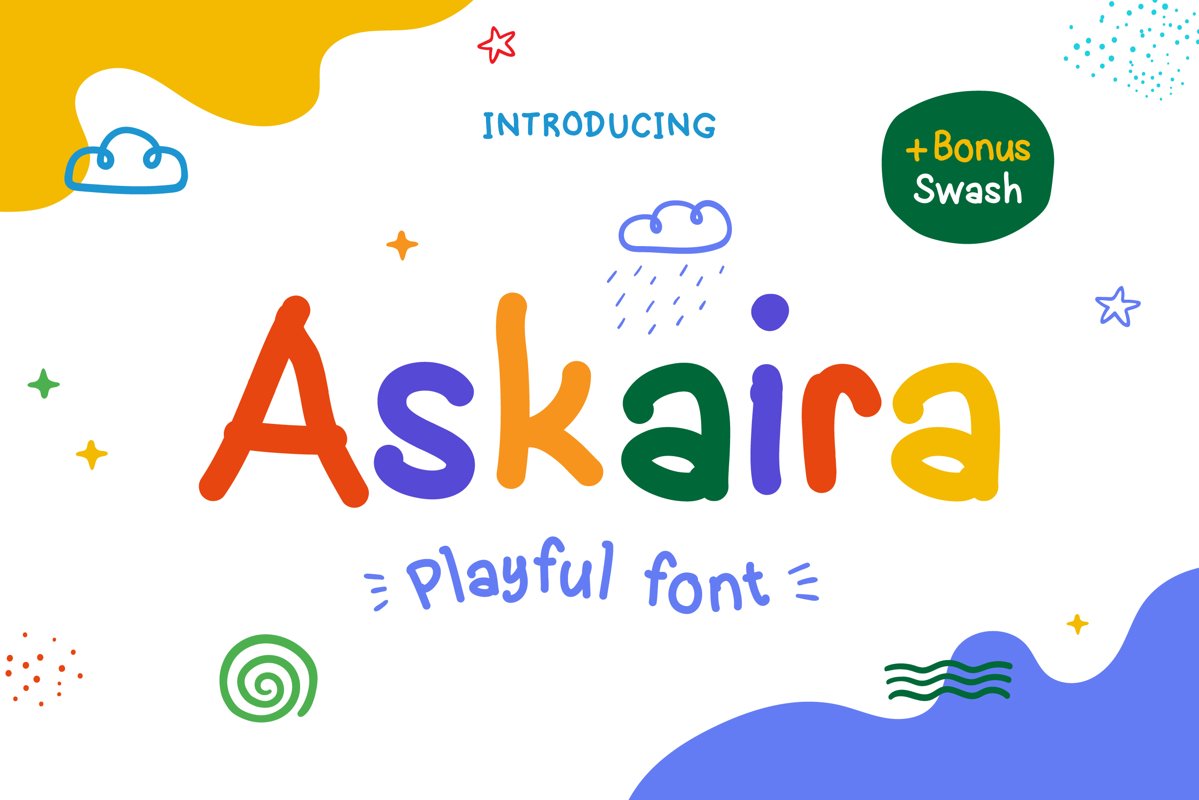
Askaira
I am pleased to introduce my new font - Askaira! It's a simple playful handwritten font with clean lines.
This font is well suited for titles, quotes, phrases. Also it would look great in logos, labels, heading, posters and on t-shirts.
Askaira font contains uppercase, lowercase characters, numbers and punctuation, and also bonus swash. Don’t forget to test your characters in the font previewer below before purchase.
Bonus:
• Swash